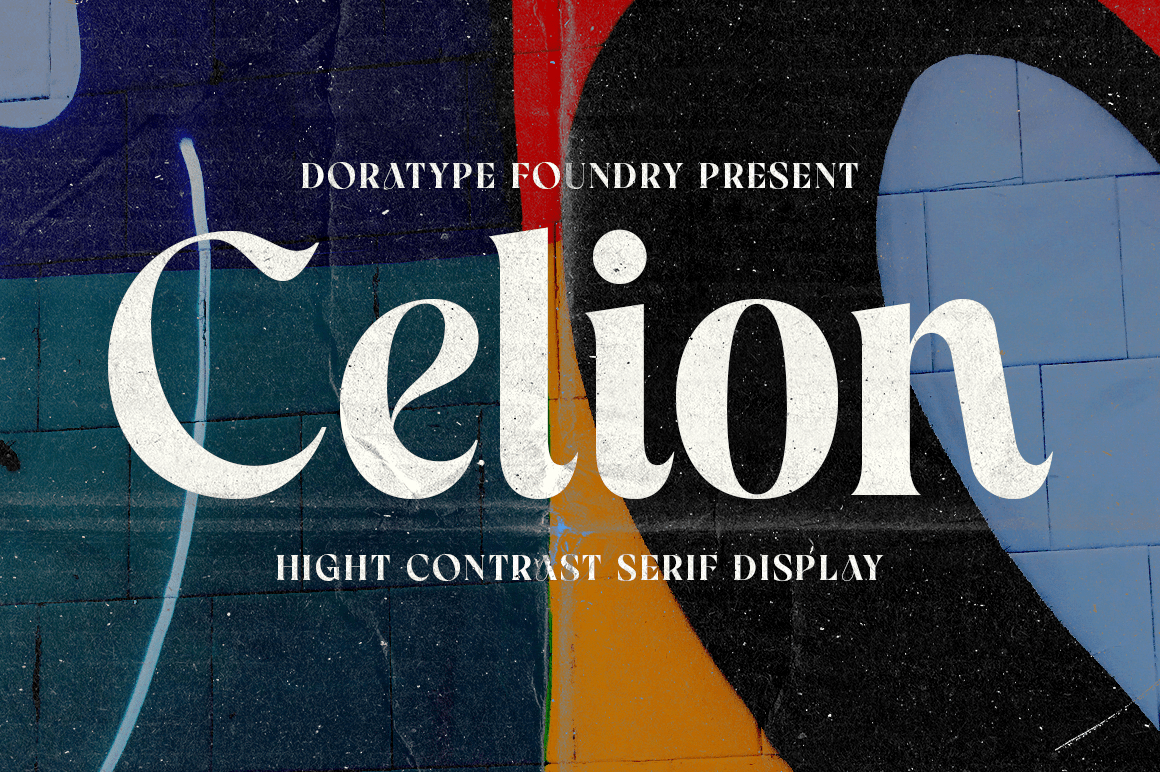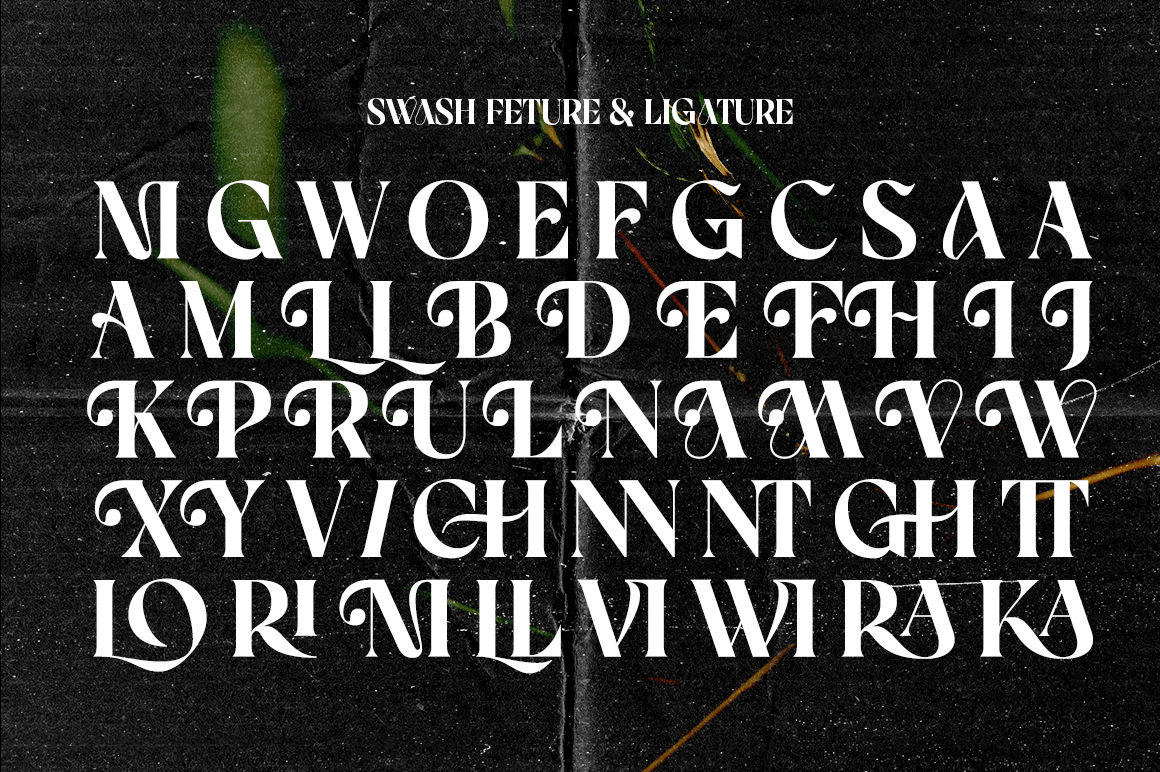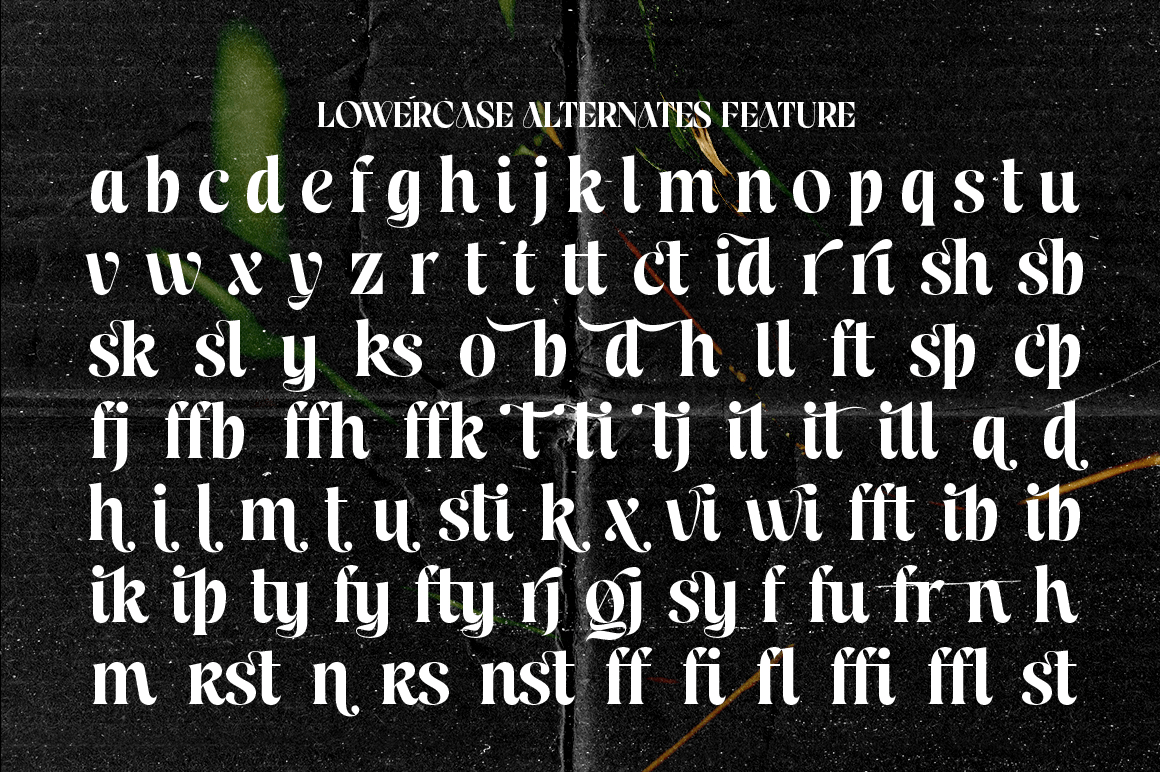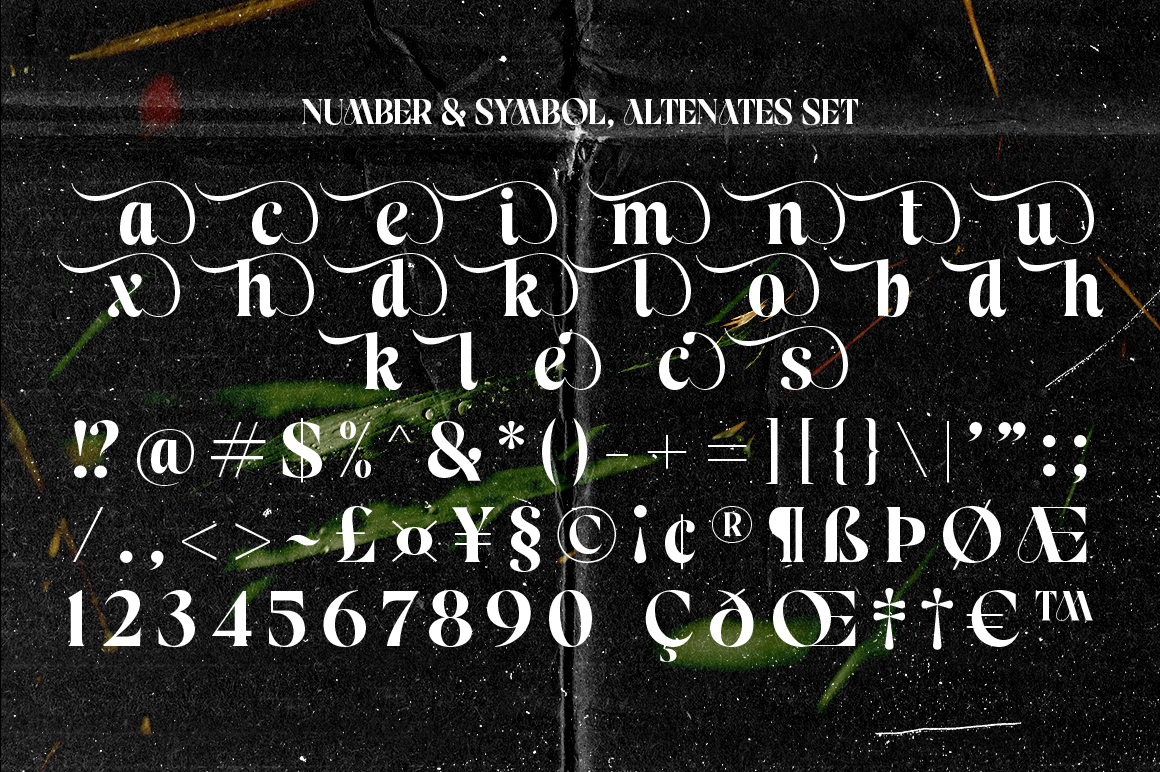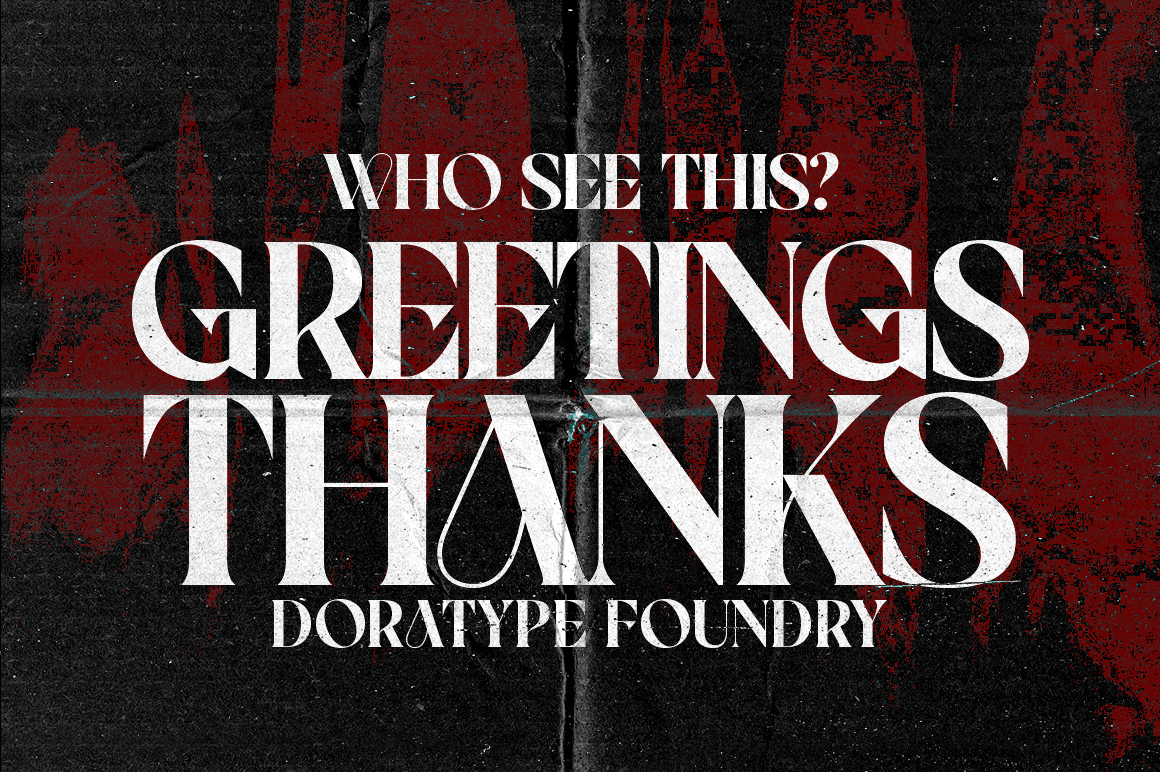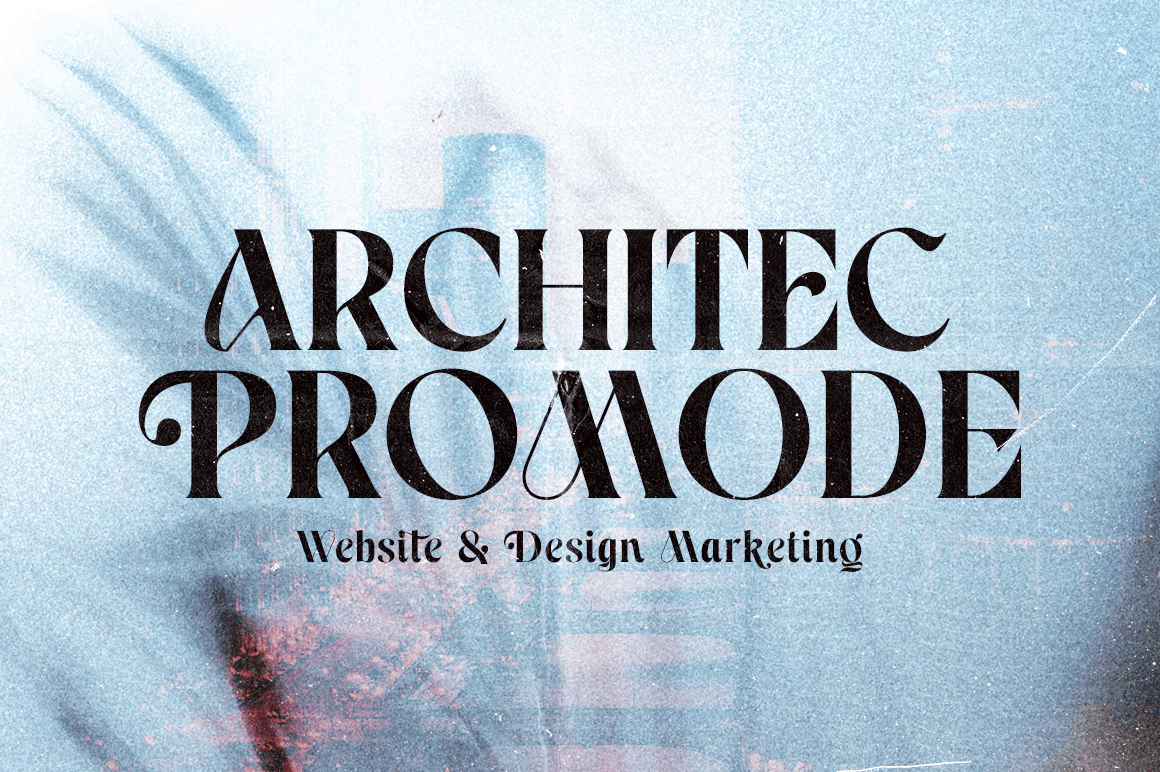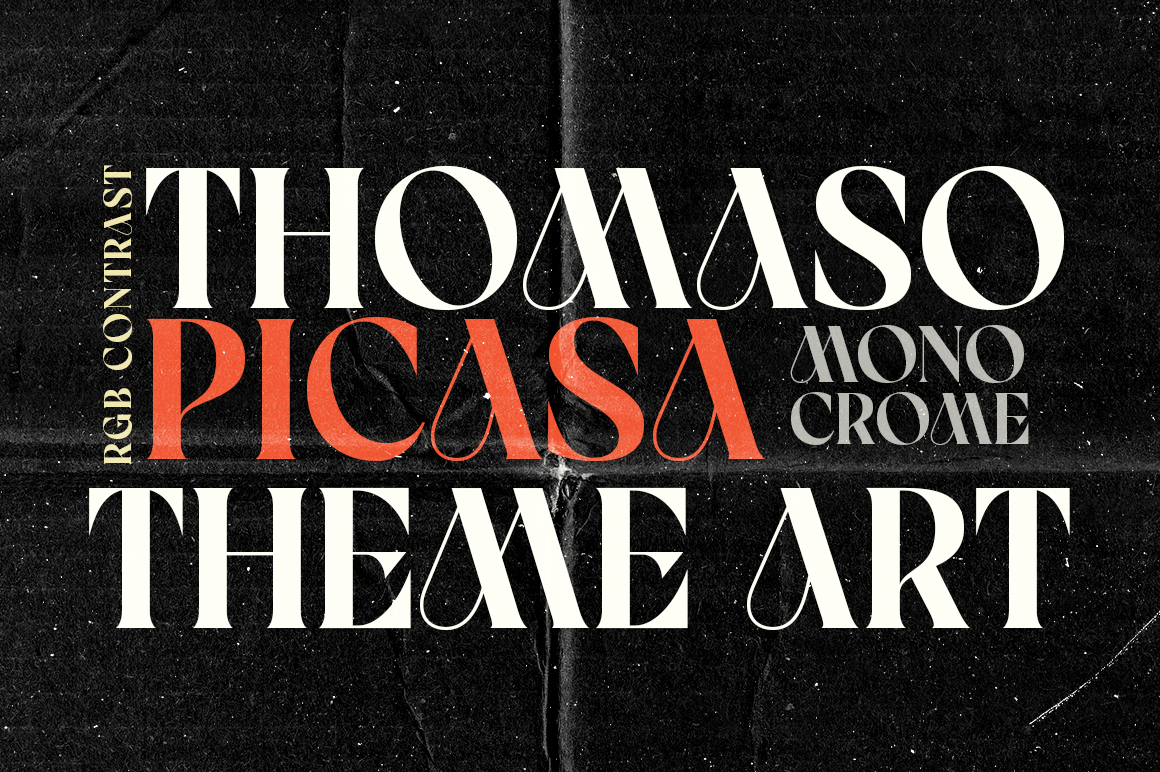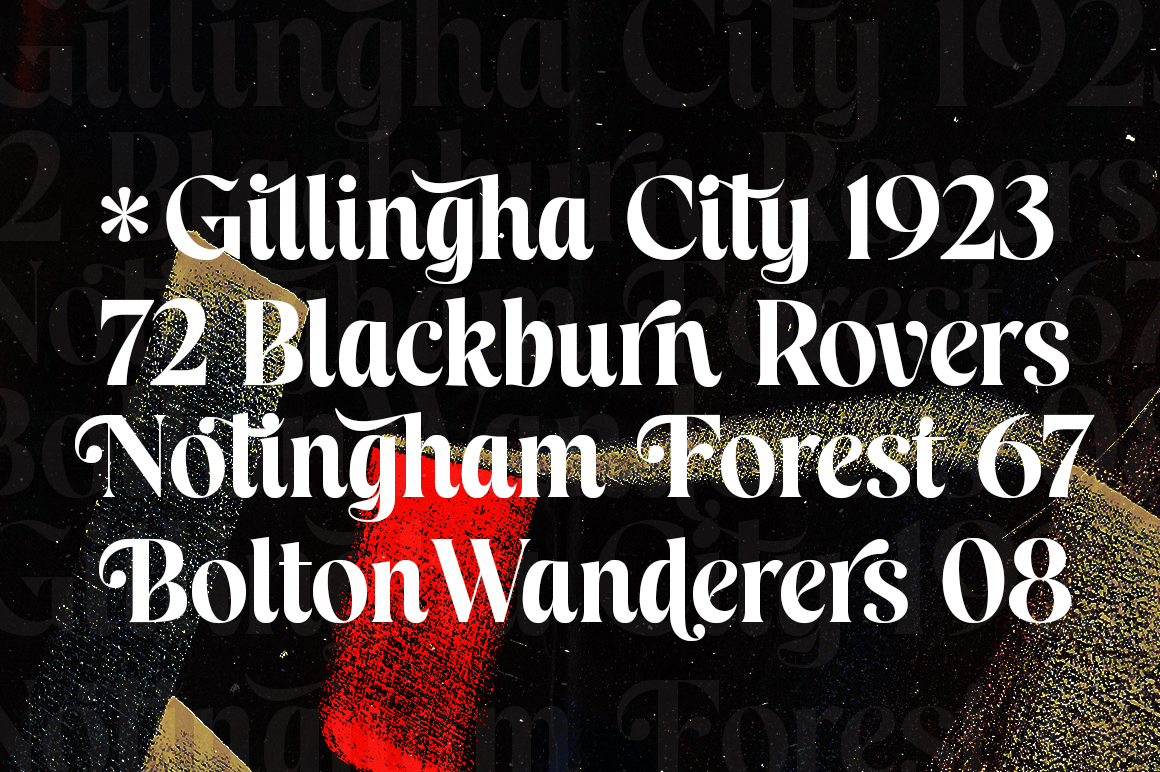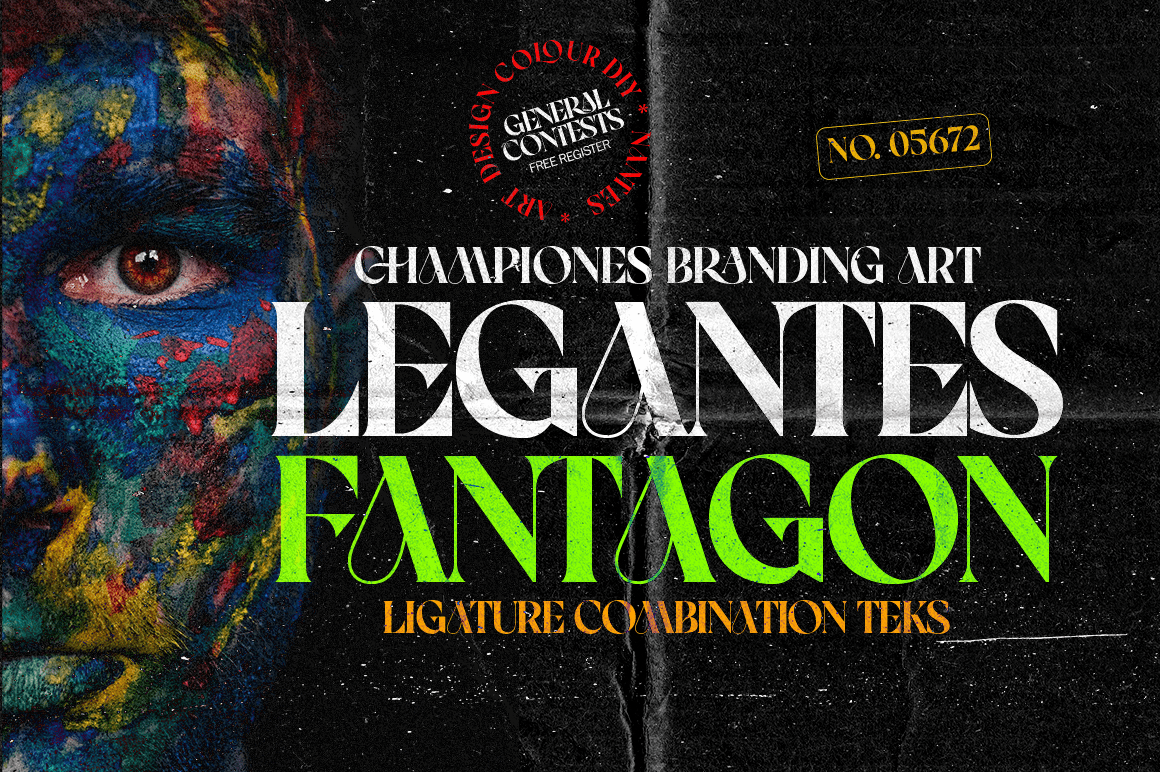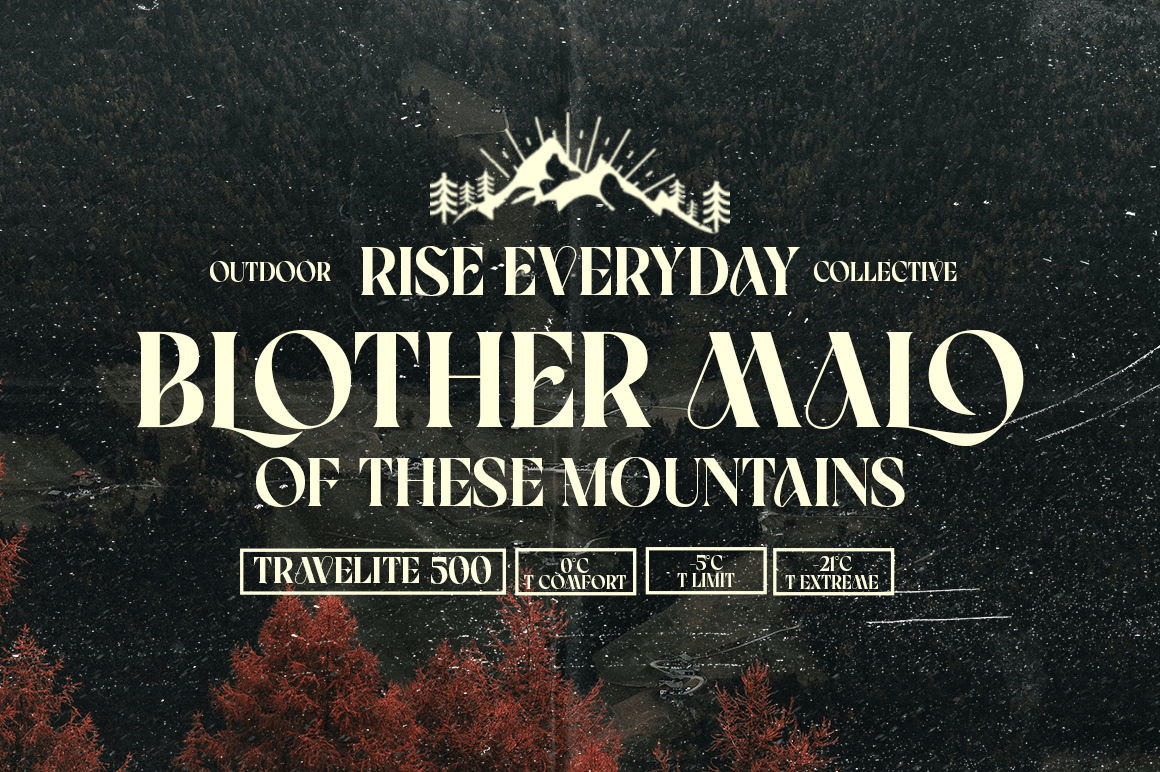
Celion
Celion is a serif display type with a nonsensical feel - modern high contrast with bright positive character. The clean shapes and slightly conical edges of the letters create a welcoming atmosphere in any design. Including ligatures, custom alternative glyphs, the Celion font is perfect for headlines, magazines, logotypes, food packages, advertisements and many others.
Features:
• All Caps Font with different uppercase and lowercase
• Number & Symbol
• Alternates and Ligatures